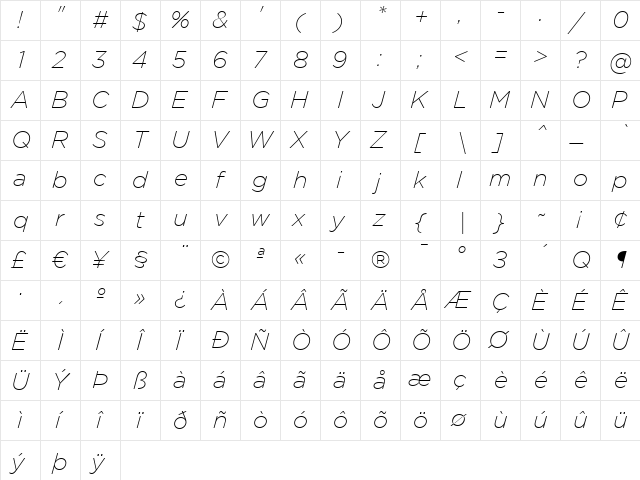
Gotham ExtraLight Italic
Design Context for Gotham ExtraLight Typeface
Gotham ExtraLight offers clean, dependable letterforms without strong stylistic allegiance, making it a practical choice for designers who need flexibility. Its italic angle brings a sense of urgency and motion to the letterforms. The delicate stroke weight brings airiness and refinement to layouts.
Pro Tip: Use Gotham ExtraLight for emphasis, pull quotes, and subheadings where its slanted energy can add rhythm to the layout.